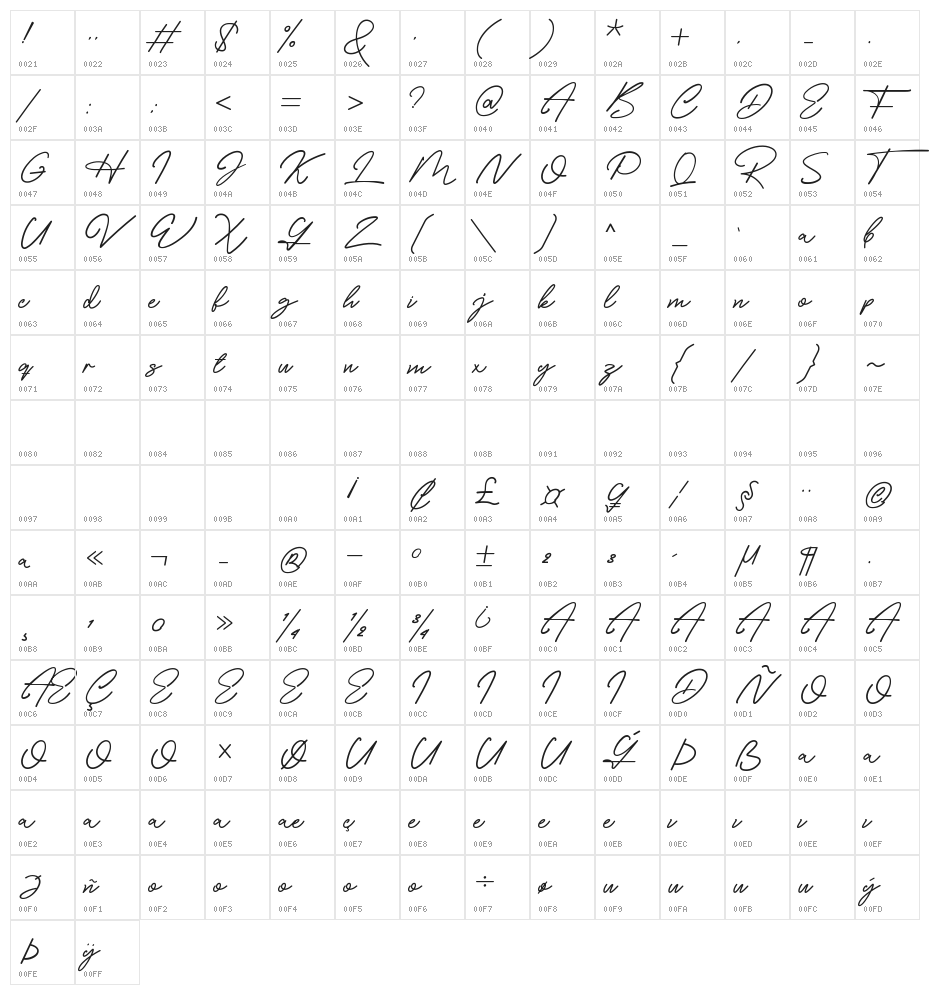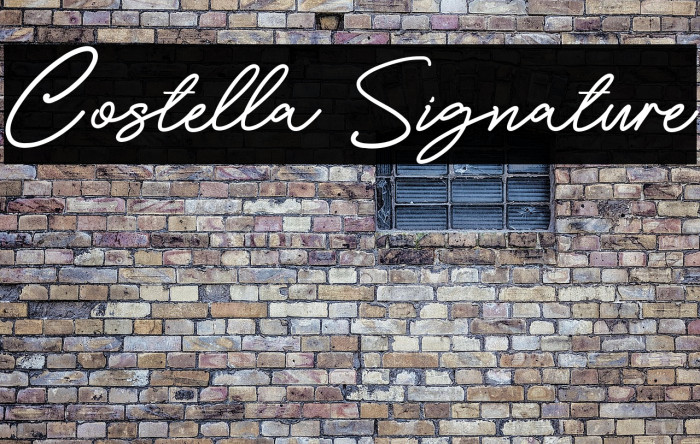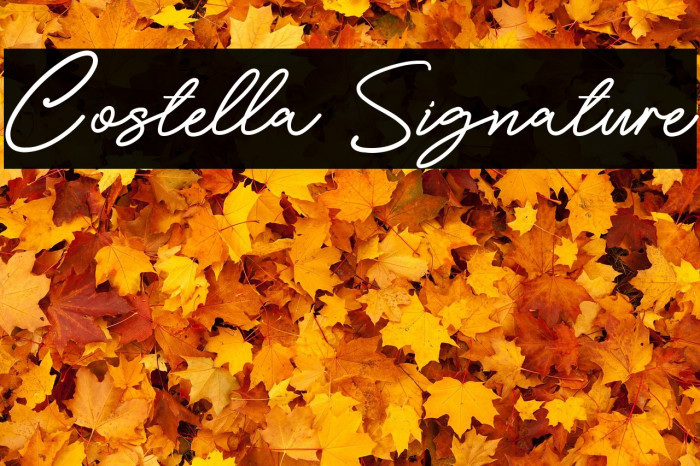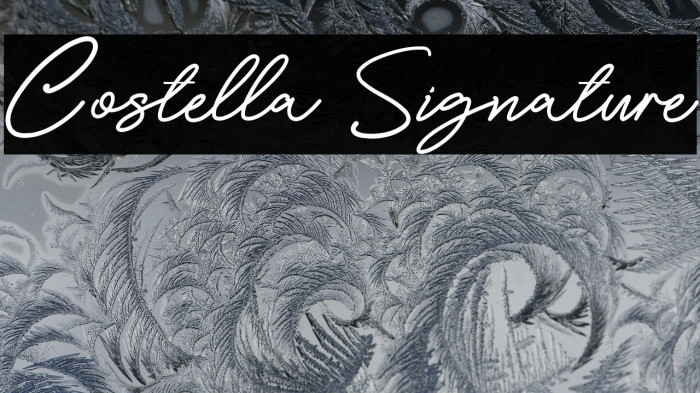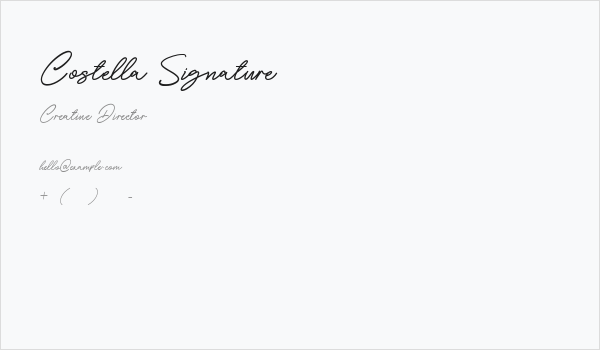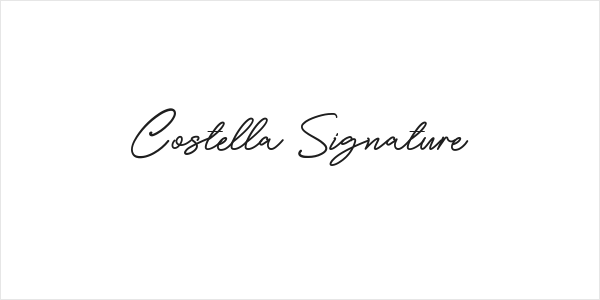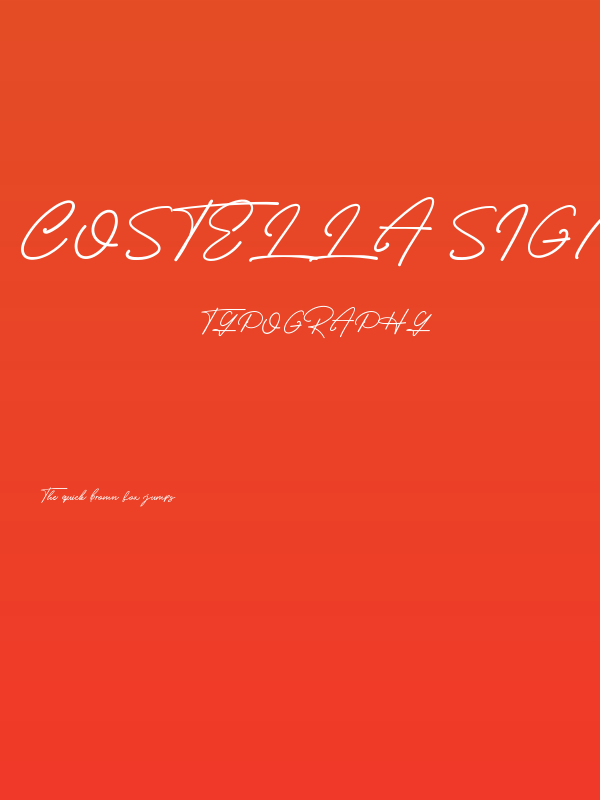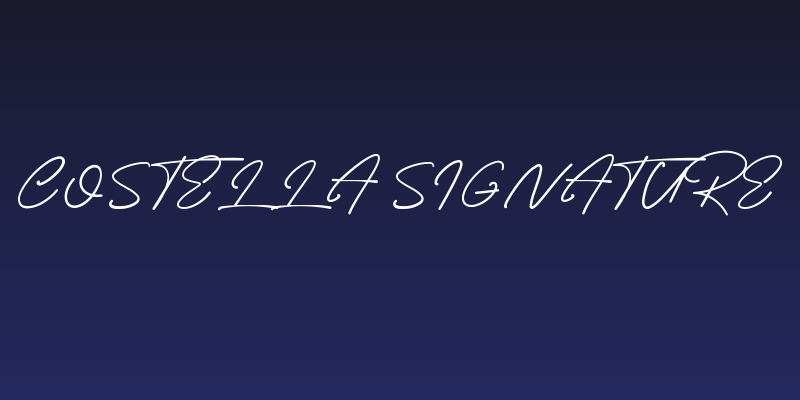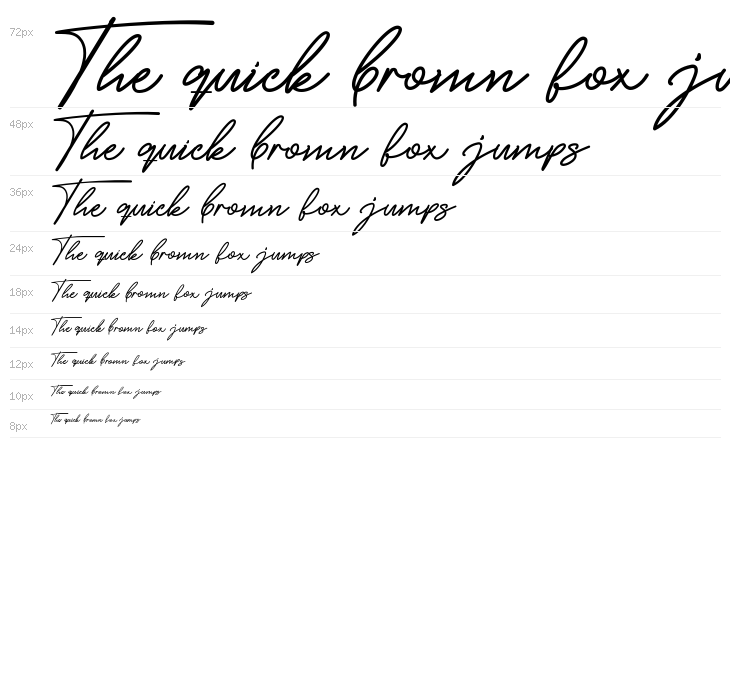
Costella Signature Font
Costella Signature Description
A flowing, cursive script font with a handwritten signature style, featuring smooth, connected strokes and elegant, natural letterforms. The uppercase and lowercase letters are distinct, with the lowercase being more rounded and the uppercase more angular. The font maintains consistent stroke thickness and a slight rightward slant.
| Overall Style | Decorative, Handwritten, Modern |
| Use Case | Logos, Signatures, Invitations, Personal branding |
| Proposed Projects | Personal branding, signatures, invitations, greeting cards, logos, social media graphics. |